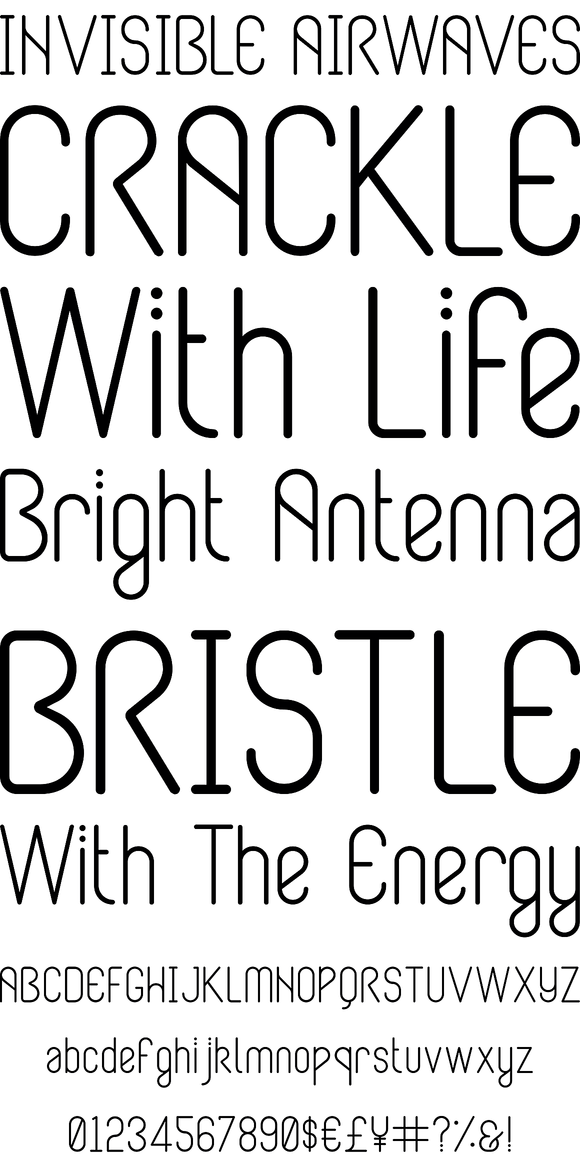
Lunar Sans in a soft monoline typeface with a little extra character here and there. It comes in light and medium weights, with italics and an extensive glyph set.